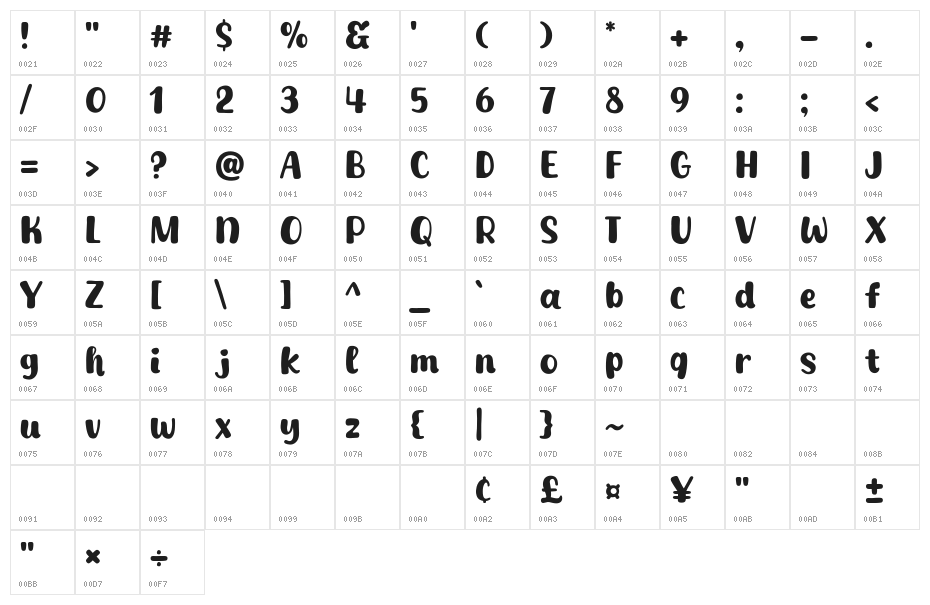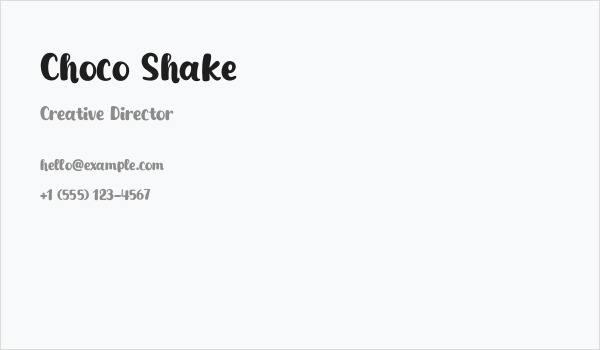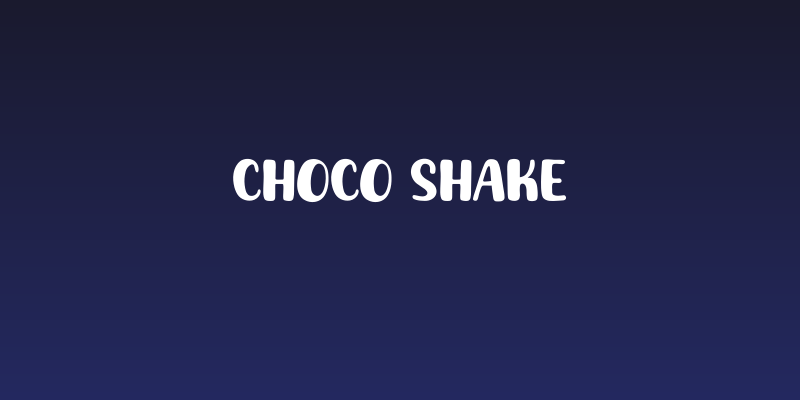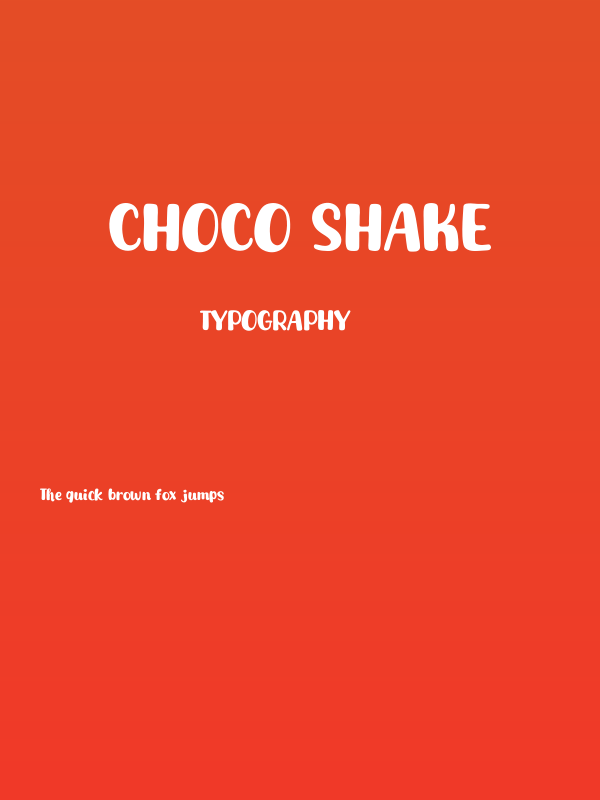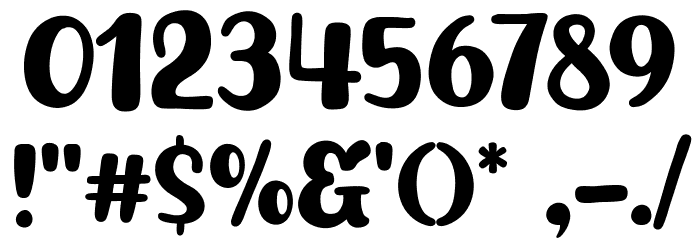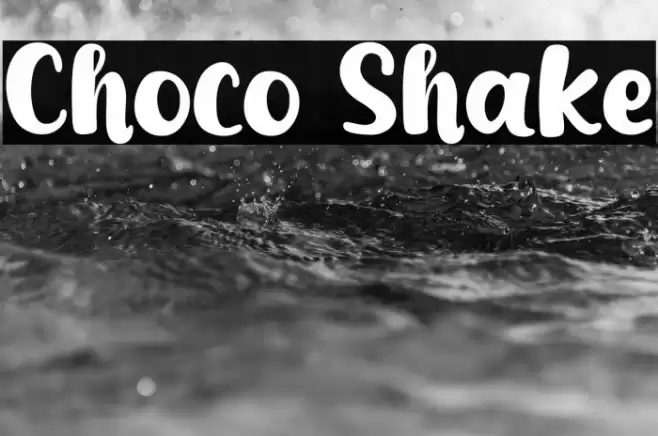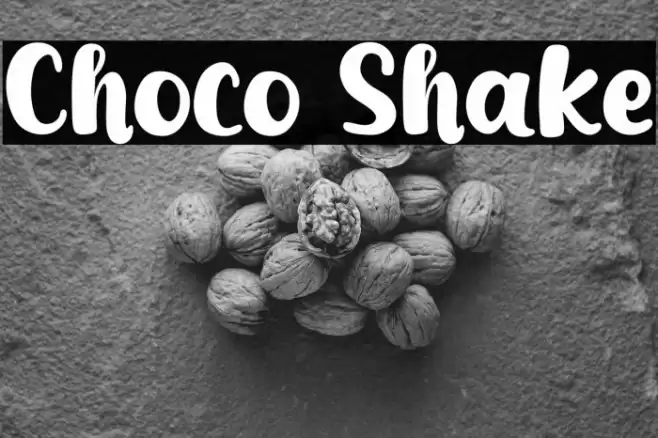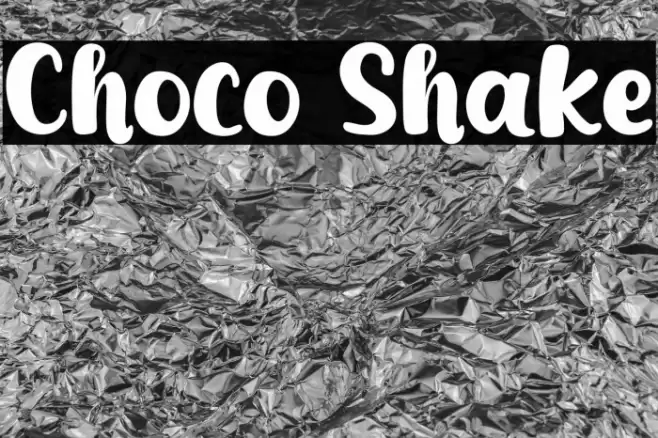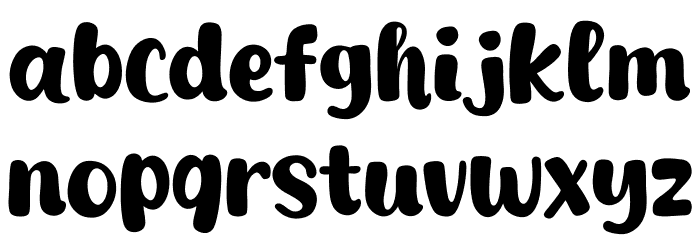
Choco Shake Font
Choco Shake Description
This playful and bold font features rounded, smooth edges and a bubbly appearance, making it ideal for creating a friendly and approachable look. The characters are thick and consistent in weight, providing a strong visual impact. The uppercase and lowercase letters maintain a cohesive style, with slight variations that add to the font's charm. The numbers and special characters are equally bold and rounded, ensuring uniformity across all elements. This font's whimsical nature makes it perfect for projects that require a touch of fun and creativity.